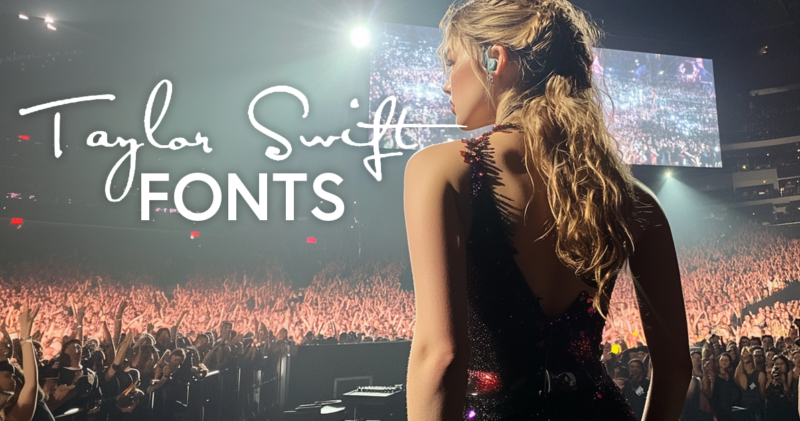
As a long-time T-Swift fan and graphic designer, I can’t help but geek out over every detail of Taylor Swift’s artistry. And let me tell you, her font choices are pure magic.
There’s something captivating about the way Taylor Swift fonts elevate her album covers from simple images to visual storytelling masterpieces. I’ve spent more hours than I’d like to admit analyzing the typographic evolution of Taylor’s brand – from the elegant script of her debut to the bold statements of “Reputation.”
It’s not just about looking pretty (though they absolutely do); these fonts are an integral part of Taylor’s musical journey.
In this deep dive, we’ll uncover the secrets behind the iconic Taylor Swift fonts that have shaped her visual identity across the eras. So, crank up your favorite TS album, and let’s embark on this typographic adventure together!
Taylor Swift’s Font Journey: Album by Album
Taylor Swift (2006)
Confirmed: Satisfaction Font
Let’s kick things off where it all began: Taylor’s self-titled debut album. The font that started it all? Satisfaction.
This elegant, signature-like font perfectly captured the essence of a young country artist ready to make her mark. It’s like Taylor signed her name on our hearts from day one.
Fearless (2008)
Confirmed: ICT Blair Pro Medium
Next up, we’ve got “Fearless,” and let me tell you, the font choice here was anything but fearful.
The original 2008 release featured ICT Blair Pro Medium, a bold sans-serif that screamed confidence. It was like Taylor was saying, “Yeah, I’m here to stay.”
But here’s where it gets interesting. When Taylor re-recorded “Fearless (Taylor’s Version)” in 2021, she switched things up. The new font? Carla Sans Light.
This change from bold to light perfectly mirrored Taylor’s journey. It’s like she was saying, “I’m still fearless, but now I’m fearless with a touch of elegance.”
Speak Now (2010)
Confirmed: Sudestada
“Speak Now” spoke volumes with its font choice: Sudestada.
This handwritten-style font perfectly captured the album’s personal, introspective nature. It’s like Taylor was inviting us to read her diary.
Here’s a little secret: the ‘S’, ‘p’, ‘k’, and ‘N’ were tweaked to make the title even more unique. Talk about attention to detail!
RED (2012)
Confirmed: Tungsten
When Taylor went “RED,” she went bold with Tungsten.
This strong, condensed sans-serif font matched the album’s fiery spirit perfectly. It’s like the font itself was saying, “We are never, ever, ever getting back together.”
1989 (2014)
Confirmed: Taylor’s own handwriting
For “1989,” Taylor Swift fonts took a personal turn. The album title? It’s Taylor’s own handwriting!
This choice perfectly matched the album’s more intimate, confessional tone. It’s like getting a note passed to you in class by Taylor herself.
Want to channel that personal touch? Try out Permanent Marker for a similar feel.
reputation (2017)
Confirmed: Engravers Old English
“reputation” brought us the edgiest of Taylor Swift fonts: a modified version of Engravers Old English.
This font choice was as bold as the album itself. It’s like Taylor was saying, “The old Taylor can’t come to the phone right now. Why? Oh, ’cause she’s dead.”
The best part? A font similar to the one used on “reputation” is free for personal use. Time to add some edge to your designs!
Lover (2019)
Confirmed: Love Font
“Lover” brought us back to Taylor’s softer side, and the font choice couldn’t have been more perfect. Despite widespread misconceptions online, the album title is NOT written in Satisfy or custom handlettering. The actual font used is called “Love Font,” created by FG Studios (with some modifications). How fitting, right?
This dreamy, romantic script captures the album’s intimate feel perfectly. It’s as if Taylor found a font that could visually express the sound of falling in love.
While “Love Font” might not be readily available for personal use, don’t worry! If you’re looking to capture that “Lover” vibe in your own designs, there are similar cursive fonts that can work. Options like Shania, Desiree Script, or Bellaria can give you that sweet, romantic “Lover” aesthetic. The key is to find a font that embodies the same warmth and intimacy that FG Studios’ “Love Font” brings to Taylor’s album.
In the end, Taylor Swift’s typographic journey is a testament to the power of visual branding. It’s a reminder that in the world of art and music, how you say something can be just as important as what you say.
So, Swifties, next time you’re belting out your favorite Taylor tune, give a little nod to the fonts that helped bring that era to life. After all, in Taylor’s world, even the letters have a melody of their own.